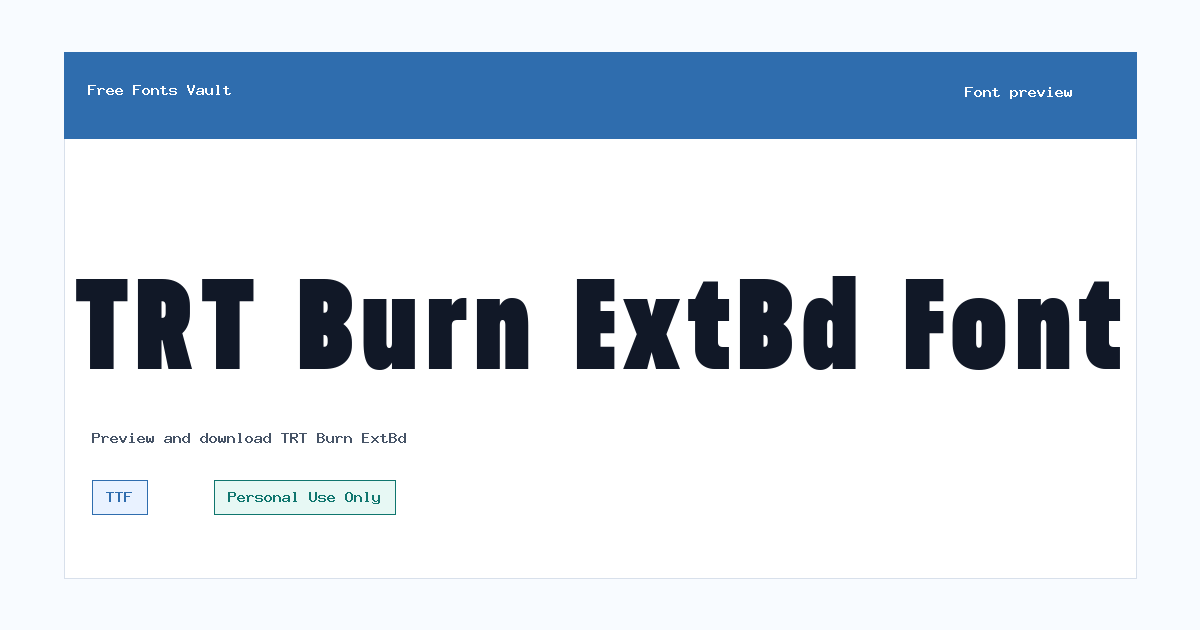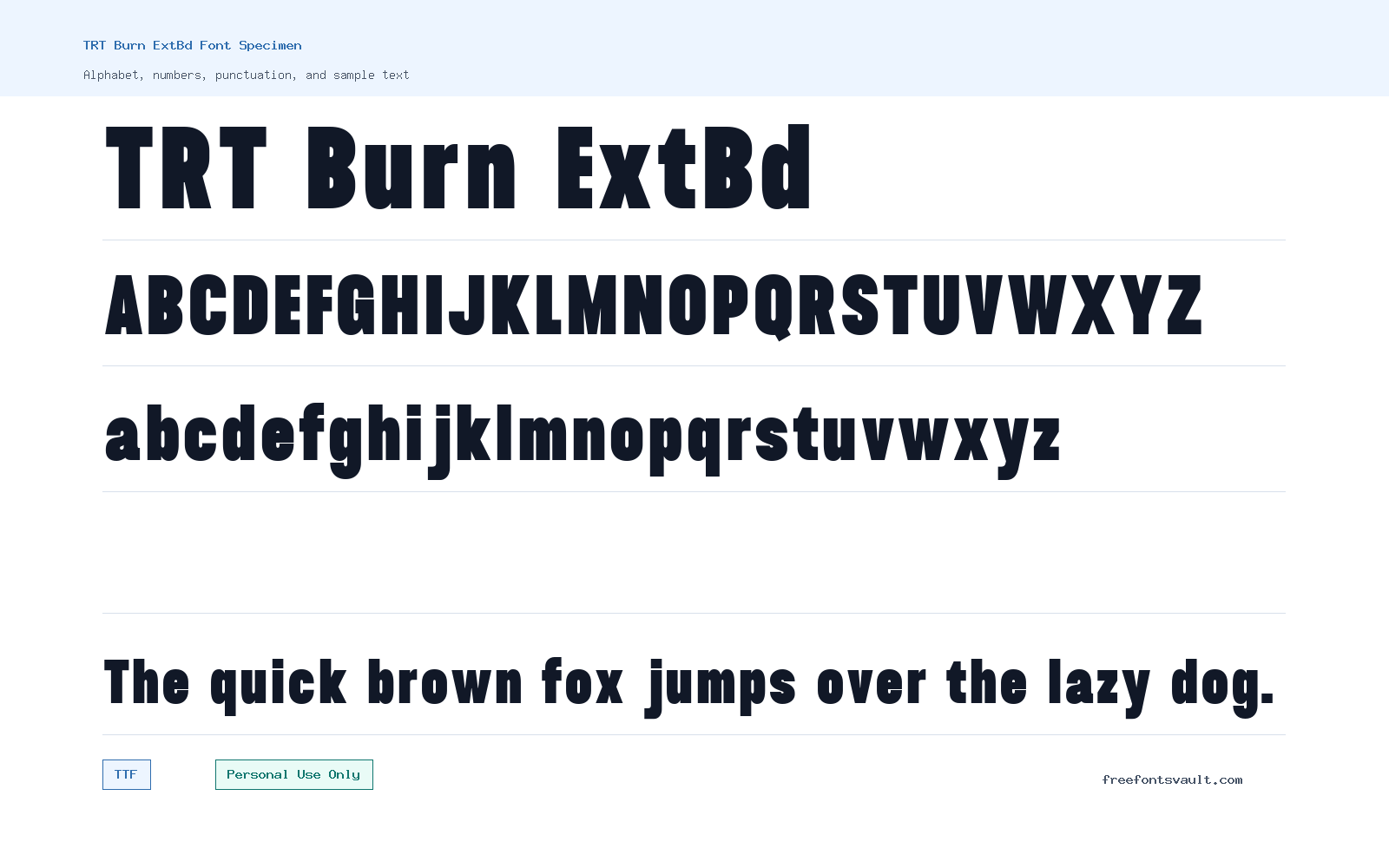
TRT Burn ExtBd
TRT Burn ExtBd font.
TRT Burn ExtBd is a strong extra-bold sans serif font built for display work, short headlines, and designs that need a heavy, confident voice. Its personal-use license makes it best for testing, learning, private projects, and non-commercial design drafts.
About TRT Burn ExtBd
TRT Burn ExtBd has the kind of weight that works best when the words are meant to be seen first. The ExtraBold style gives letters a dense, blocky presence, so it can stand up well in poster titles, logo drafts, social graphics, cover text, stickers, banners, and other short display settings. Because this is a sans serif design, it keeps the overall shape clean rather than decorative, which makes it easier to pair with simpler supporting text. It is not the right choice for long paragraphs, but that is not where a heavy display font usually performs best. Use it where a few words need impact: a brand name mockup, a campaign headline, a bold label, or a compact title treatment.
For designers, the safest way to judge TRT Burn ExtBd is to test it with the exact words you plan to use. Extra-bold fonts can change character depending on letter combinations, spacing, and size. Try uppercase names, mixed-case headlines, numbers, and punctuation in the preview before downloading. If you are building a logo concept, check how the font behaves at both large and small sizes, especially if the design may appear on a profile image, label, or mobile screen. For posters and web mockups, give it enough breathing room. Heavy fonts can feel crowded when the line height is tight or when too many words are placed in one block.
- Extra-bold sans serif styling suited to short display text, headlines, and title graphics.
- Normal style with a 700 font weight, giving the type a firm and heavy appearance.
- Works best in large sizes where the letter shapes have enough space to stay clear.
- Practical for personal logo concepts, posters, social media artwork, web mockups, labels, and presentation graphics.
- Simple sans serif structure makes it easier to pair with neutral body fonts than highly decorative typefaces.
- Poster headlines that need a compact, bold typographic focus.
- Social media graphics, banners, thumbnails, and title cards.
- Event-style artwork, cover designs, stickers, and display labels.
- Website hero mockups where a strong heading font is needed.
Use TRT Burn ExtBd where the message is short and the font can be shown large. It can be effective for logo sketches, posters, headings, and mockups, but it may feel too heavy for body copy, captions, long menus, or dense informational layouts. Pair it with a plain sans serif or a readable serif for supporting text, and avoid using another very bold display font beside it. If the design has a lot of copy, let TRT Burn ExtBd handle the main headline while a lighter font carries the details. In web mockups, test the heading on mobile widths and reduce tracking or size only after checking that the letters still read clearly.
What kind of font is TRT Burn ExtBd?
TRT Burn ExtBd is an extra-bold sans serif display font. It is best suited to short text, such as headlines, logo drafts, posters, banners, and strong title treatments.
Is TRT Burn ExtBd good for body text?
It is not ideal for body text. Its heavy weight is better for large display use. For paragraphs, pair it with a lighter and more readable text font.
What font weight does TRT Burn ExtBd use?
The available style is listed with a 700 weight, which corresponds to a bold or extra-bold appearance depending on the font design.
What should I test before using this font in a design?
Preview your exact words, check uppercase and mixed-case text, test spacing, and view the design at both large and small sizes. Heavy fonts can lose clarity when squeezed into tight spaces.